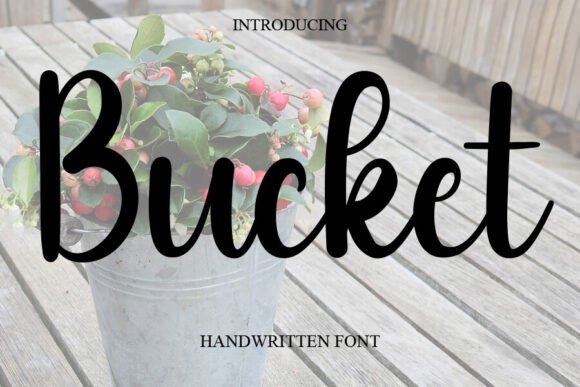
The Bucket Font: A Timeless Handwritten Treasure
I’ll never forget the design project that led me to discover the Bucket Font. I was working on a branding campaign for a new coffee shop, and I was struggling to find the perfect font to capture their warm and cozy vibe. That’s when I stumbled upon Bucket, and it instantly became my go-to choice. In this article, I’ll share my love for this lovely and timeless handwritten font, its features, and how to make the most of it in your designs.
- ✨ Unique and beautiful touch: Every letter in Bucket Font has a distinct character that adds a personal touch to your designs.
- ✅ Timeless appeal: The font’s handwritten style is both classic and modern, making it suitable for a wide range of projects.
- 💫 Eye-catching: Bucket Font is perfect for creating logos, branding, and quotes that grab attention.
While Bucket Font is an amazing choice, there are a few things to keep in mind:
- ⚠️ Limited use of uppercase letters: Bucket Font is designed primarily for lowercase letters, so be mindful of this when creating titles or headings.
- 🤔 Limited glyphs: While the font has a good range of characters, it may not have all the special glyphs you need for certain projects.
The Story Behind Bucket Font
Bucket Font was designed with love and care by a talented type designer who wanted to create a font that would bring a personal touch to digital designs. The font’s unique and beautiful touch is inspired by traditional handwriting and lettering techniques. While the designer’s story might be fictional, the font’s timeless appeal is undeniable.
Q: What is Bucket Font best used for?
A: Bucket Font is perfect for creating eye-catching logos, branding, and quotes. Its unique and beautiful touch makes it suitable for a wide range of projects, from digital designs to print materials.
Q: Is Bucket Font suitable for body text?
A: While Bucket Font is a beautiful font, it’s best used for headings, titles, and short paragraphs. Its handwritten style can be a bit challenging to read in large blocks of text.